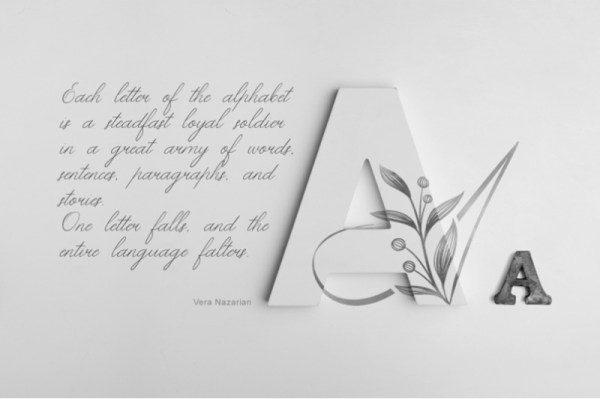
Freebie Wednesday: Gentle Whisper Floral Font.
Gentle Whisper Floral is an elegant, decorative, feminine font. Use this font for wedding invitations, branding, packaging, magazines, florist shops, social media, restaurant menus, greeting cards, headers and many more.